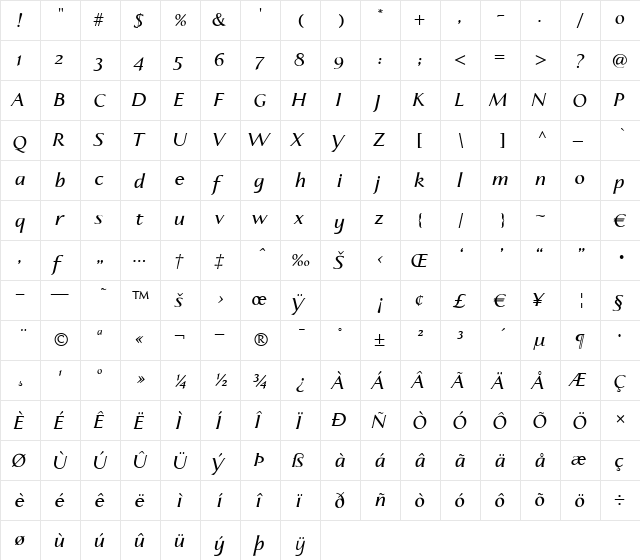
Aperto SB SemiBold Italic
Design Context for Aperto SB Typeface
Aperto SB takes a measured approach to typography — its balanced proportions and neutral character make it a reliable workhorse for both digital and print work. The dynamic lean of this cut emphasises speed and emphasis in any layout. Its bold stroke weight gives it real presence on the page.